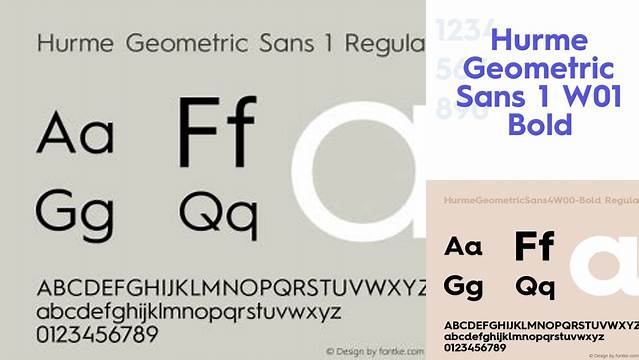
1. Understanding the Appeal of Hurme Geometric Font
Okay, guys, let's dive into what makes the Hurme Geometric font family so darn appealing! This font is like that effortlessly cool friend who always looks put-together without even trying. The magic lies in its geometric construction, meaning it’s built on simple shapes – circles, squares, and triangles – giving it a clean, modern, and super readable vibe. Think about logos, websites, and posters; a geometric font adds a touch of sophistication and clarity that's hard to beat. When you're looking for a typeface that screams modern elegance, Hurme Geometric should definitely be on your radar. Its versatility allows it to shine in a variety of contexts, from body text to bold headlines, making it a designer's dream. Plus, the attention to detail in each character ensures a consistent and polished look, which is crucial for maintaining a professional image. Its clarity and simplicity ensure readability, whether on screen or in print, and its geometric foundations create a sense of balance and harmony. So, whether you're a seasoned designer or just starting, understanding the appeal of Hurme Geometric is the first step to unlocking its full potential in your projects. The strong presence of Hurme Geometric lies in its ability to convey both professionalism and creativity, making it a go-to choice for anyone aiming to make a lasting impression.
2. Exploring the Hurme Geometric Font Family Variations
Now, let's get into the nitty-gritty of the Hurme Geometric font family variations. It’s not just a single font; it's a whole family, each with its own personality and strengths. You’ve got everything from the ultra-thin weights, which whisper elegance and modernity, to the extra-bold ones that shout for attention. These variations give you, the designer, a fantastic toolkit to play with. Imagine using a light weight for your body text, keeping it clean and airy, and then switching to a bolder weight for your headings, making them pop and grab the reader's eye. The beauty of a font family like Hurme Geometric is that it provides consistency while allowing for visual hierarchy. This means you can create a design that's both unified and dynamic, all within the same typeface. Each weight and style has been meticulously crafted to ensure it works harmoniously with the others, offering a seamless typographic experience. Whether you're designing a minimalist website or a vibrant poster, the Hurme Geometric family provides the flexibility you need to achieve the perfect look and feel. So, exploring these variations is key to understanding how to best utilize this font in your designs, allowing you to create visually stunning and impactful work.